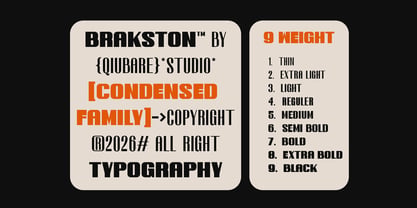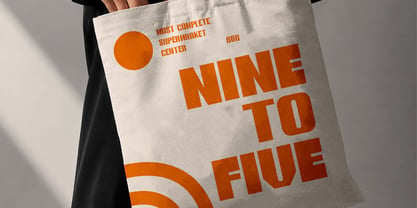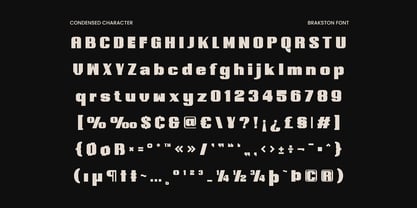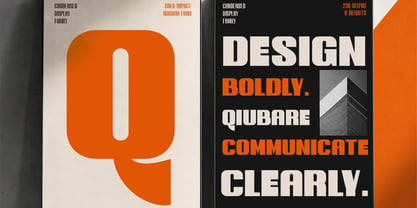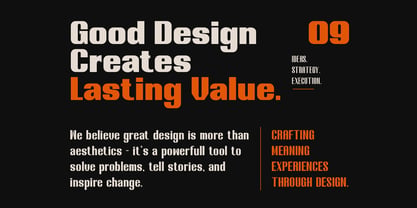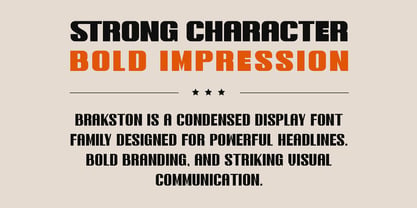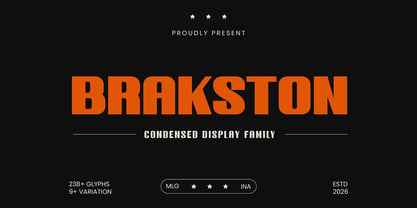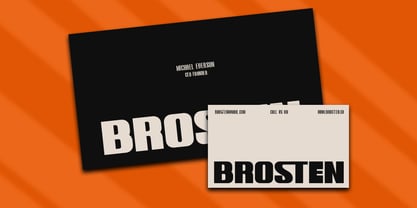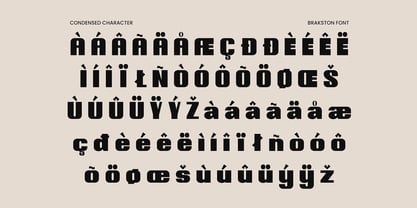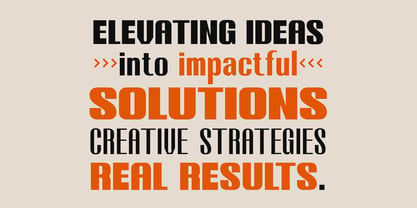
Brakston
by Qiubare Studio
The Brakston Font Family was designed by Michael Everson and published by Qiubare Studio. Brakston contains 9 styles and family package options. More about this family
Brakston is a modern condensed display typeface built to create bold visual impact. Featuring nine versatile weights, multilingual support, and over 238 carefully crafted glyphs, Brakston is designed for designers who need strong typography that instantly captures attention.
Its clean geometry, narrow proportions, and confident personality make it perfect for branding, editorial layouts, posters, packaging, advertising, logos, social media graphics, apparel, websites, and modern visual identities.
Whether you're creating bold headlines or sophisticated branding systems, Brakston delivers clarity, strength, and contemporary style.
Features :
• 9 Font Weights
• 238+ Glyphs
• Multilingual Support
• Uppercase & Lowercase
• Numbers & Punctuation
• Currency Symbols
• OpenType Features
• PUA Encoded
Designers: Michael Everson
Foundry: Qiubare Studio